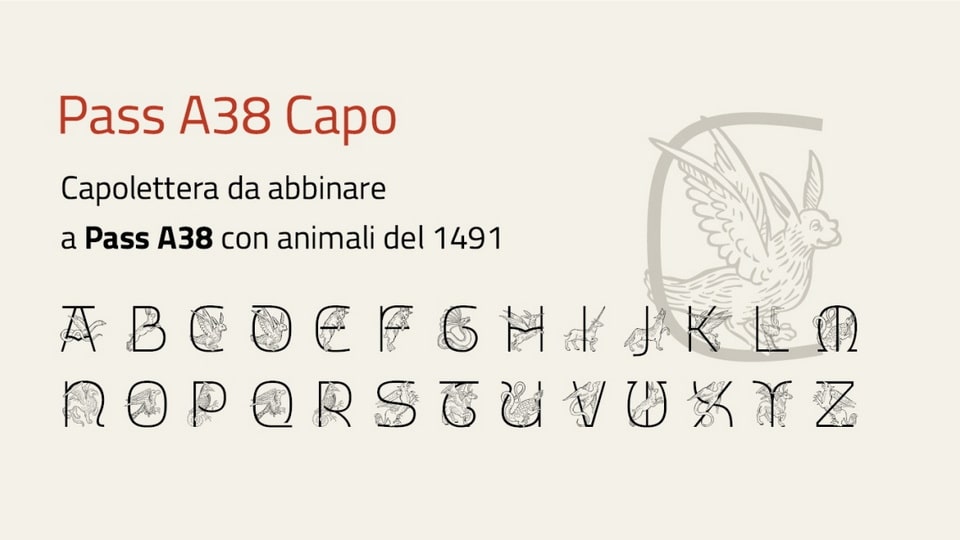
Download Pass A38 Capo font, an experimental drop caps typeface with creatures that brings the enchanting artistry of the late medieval period to life.
Designer: Michele Casanova